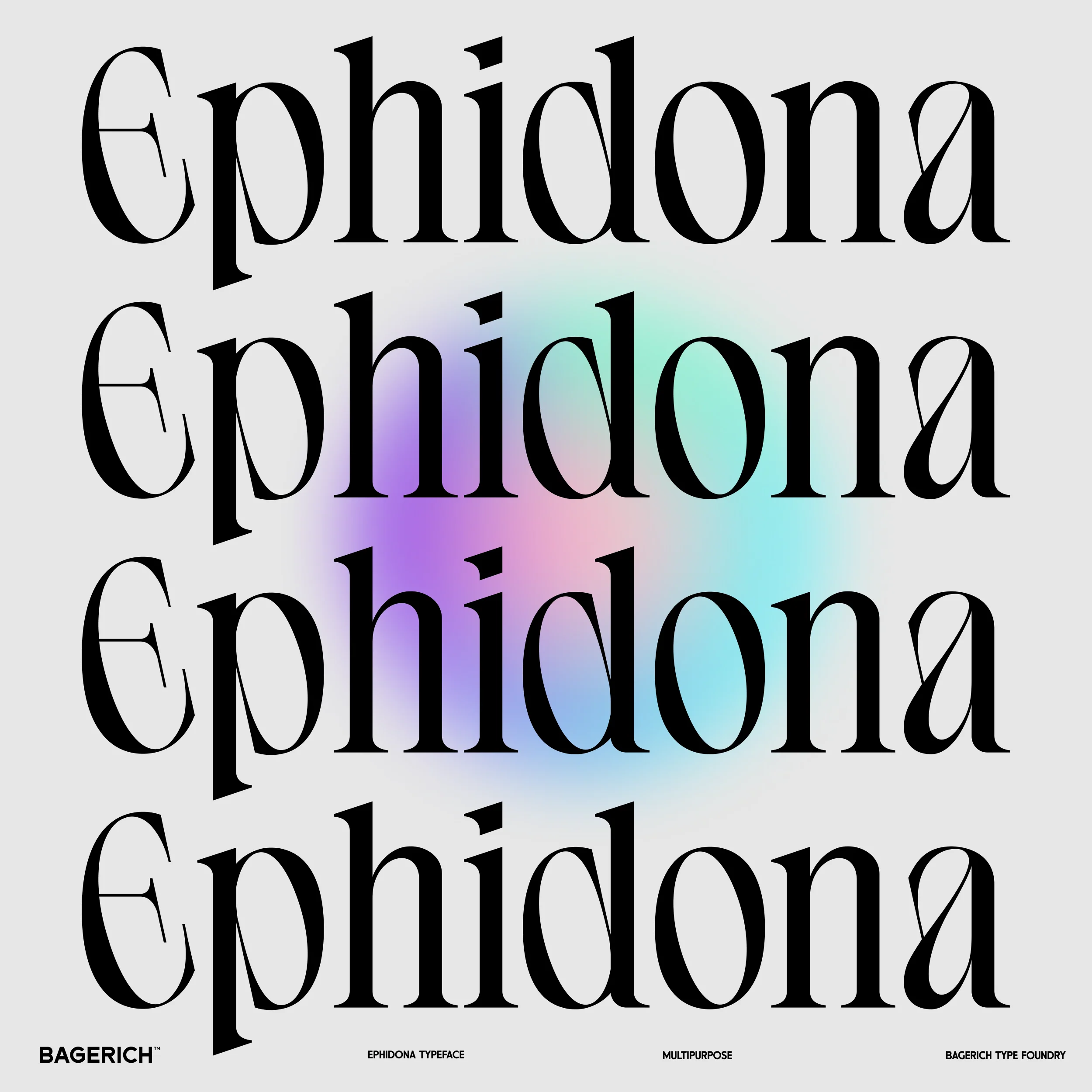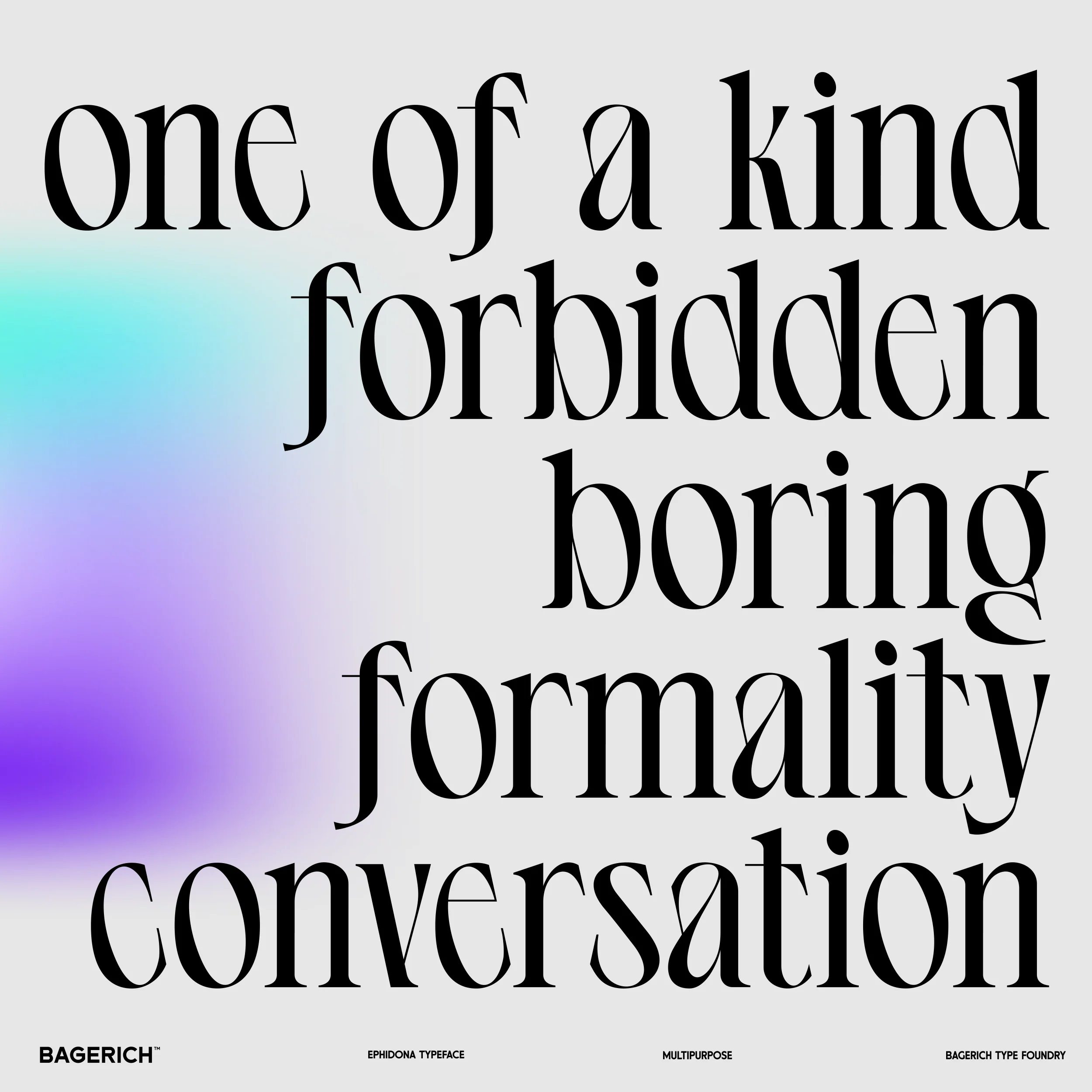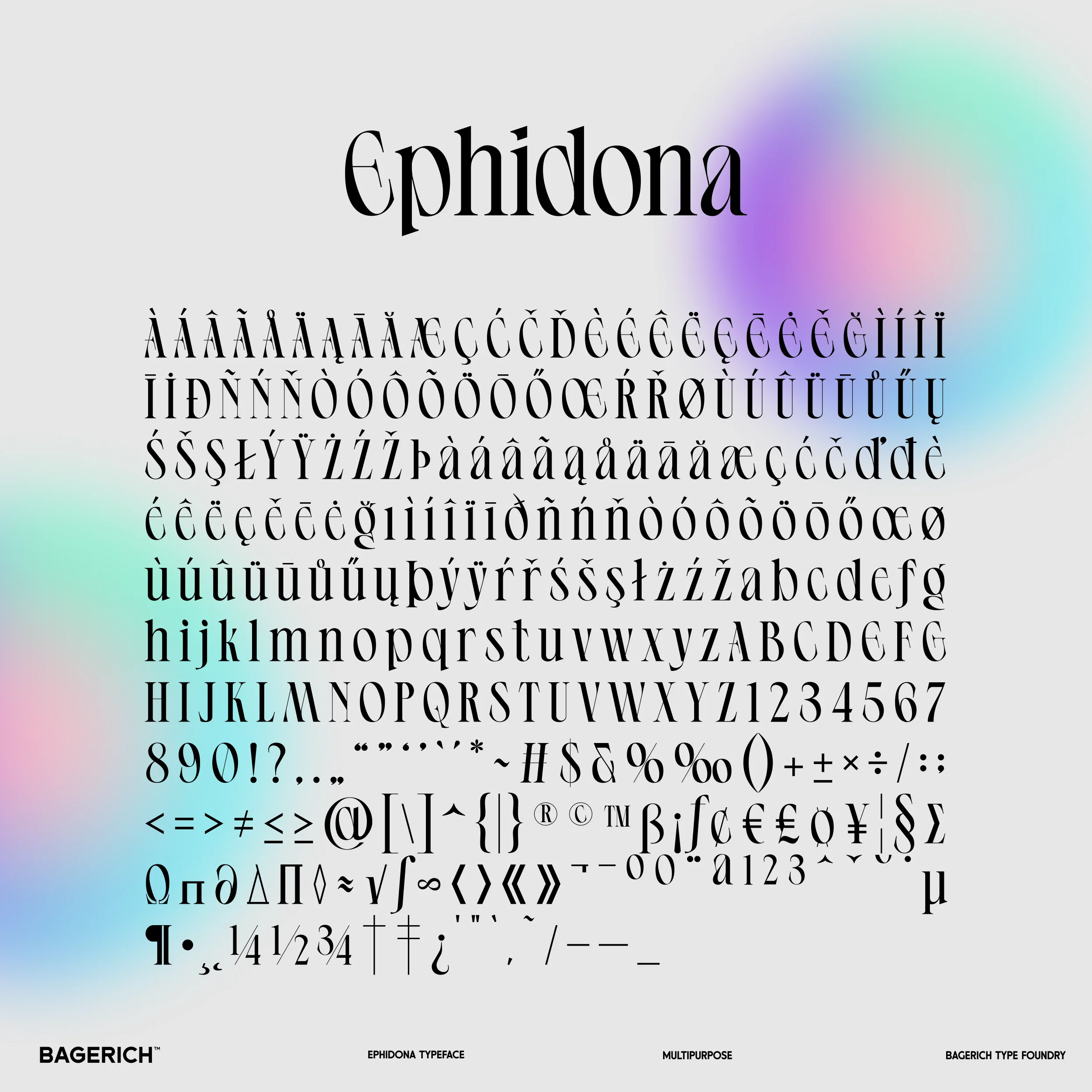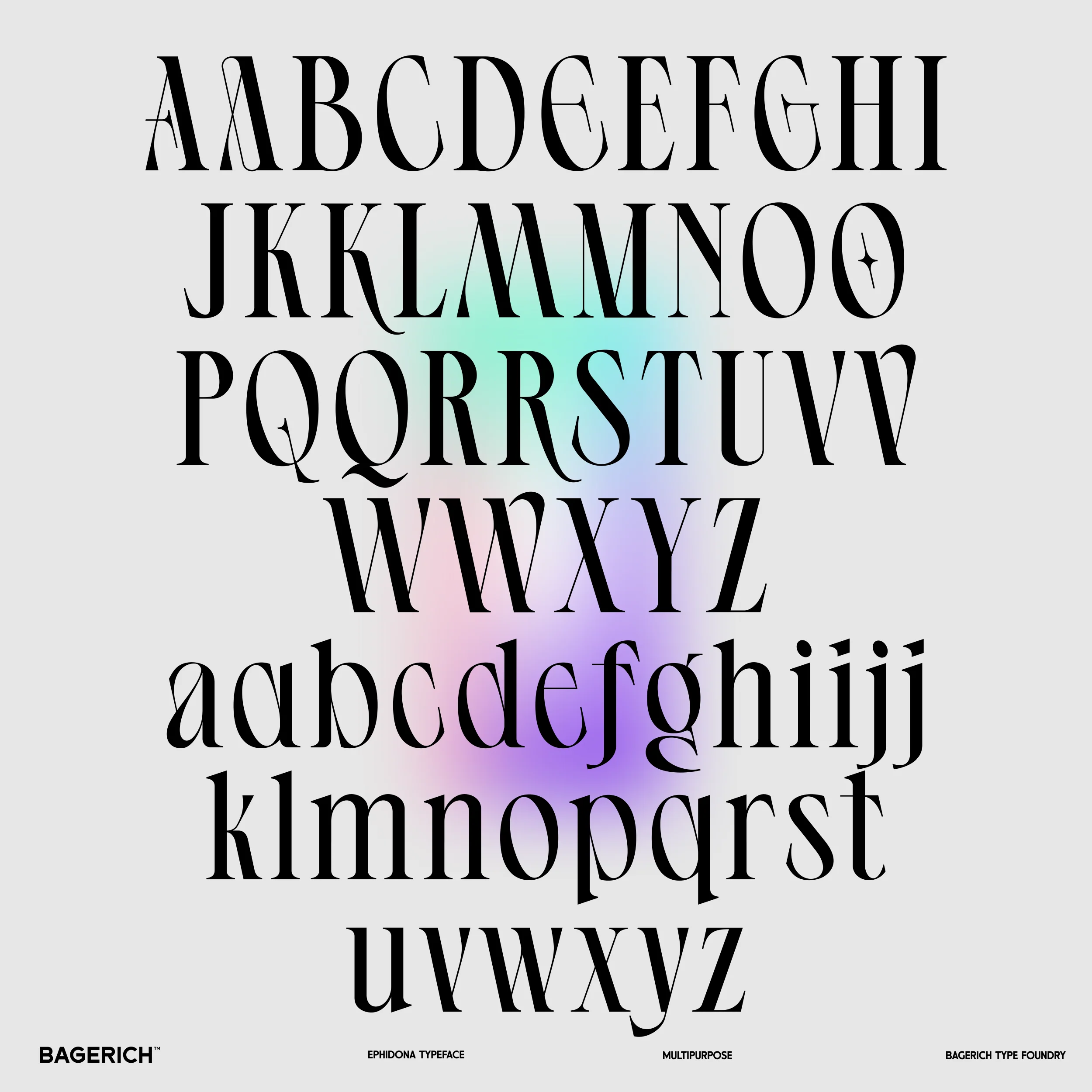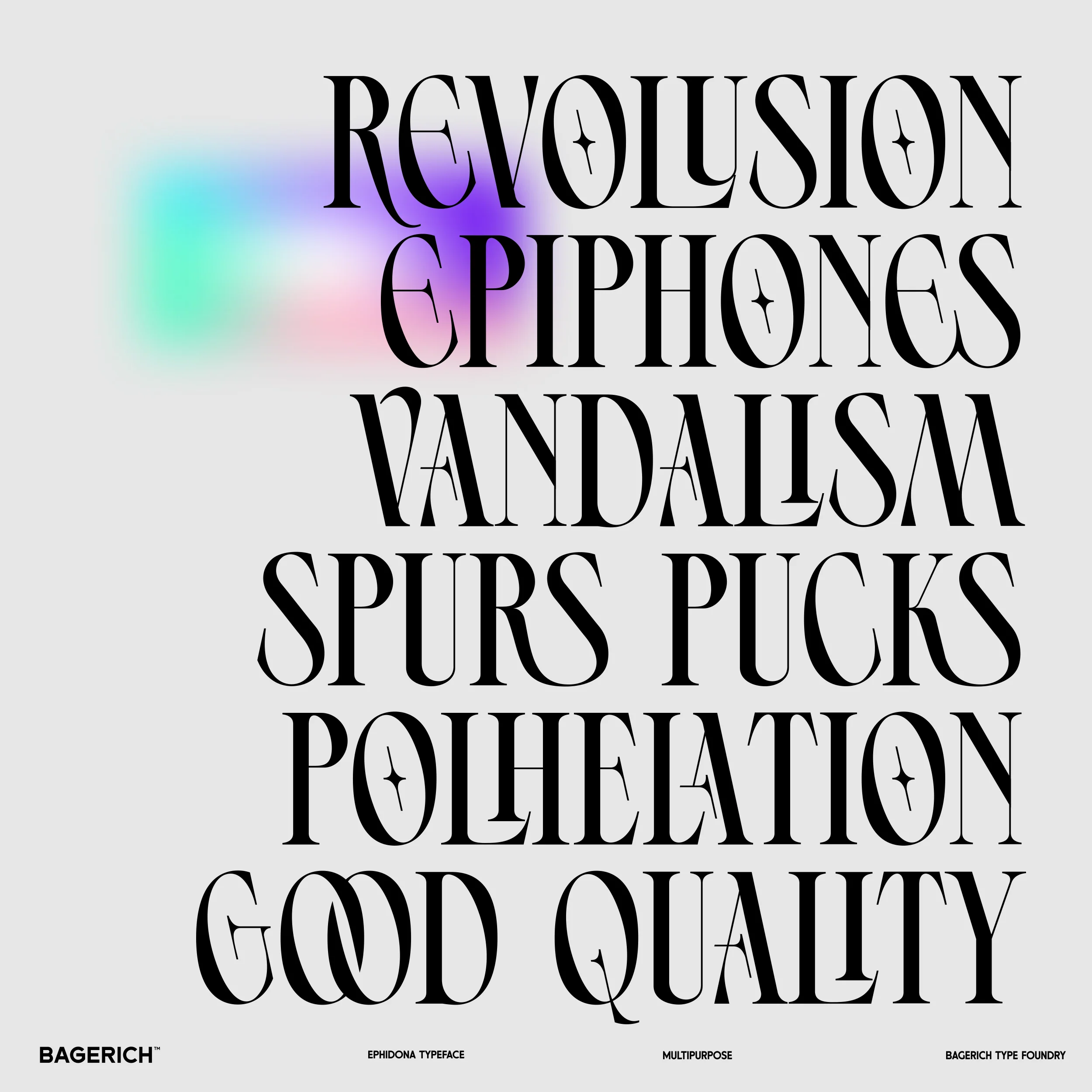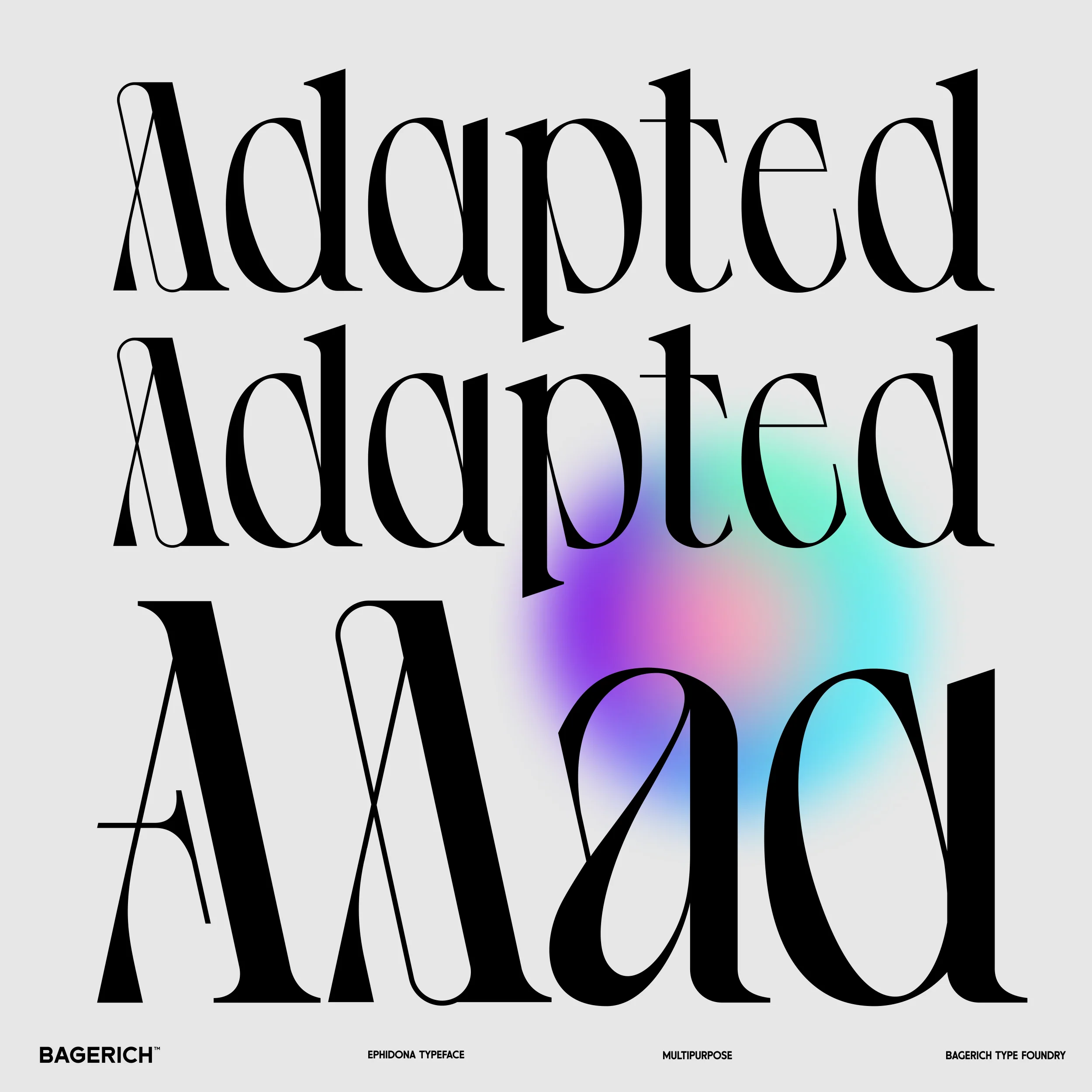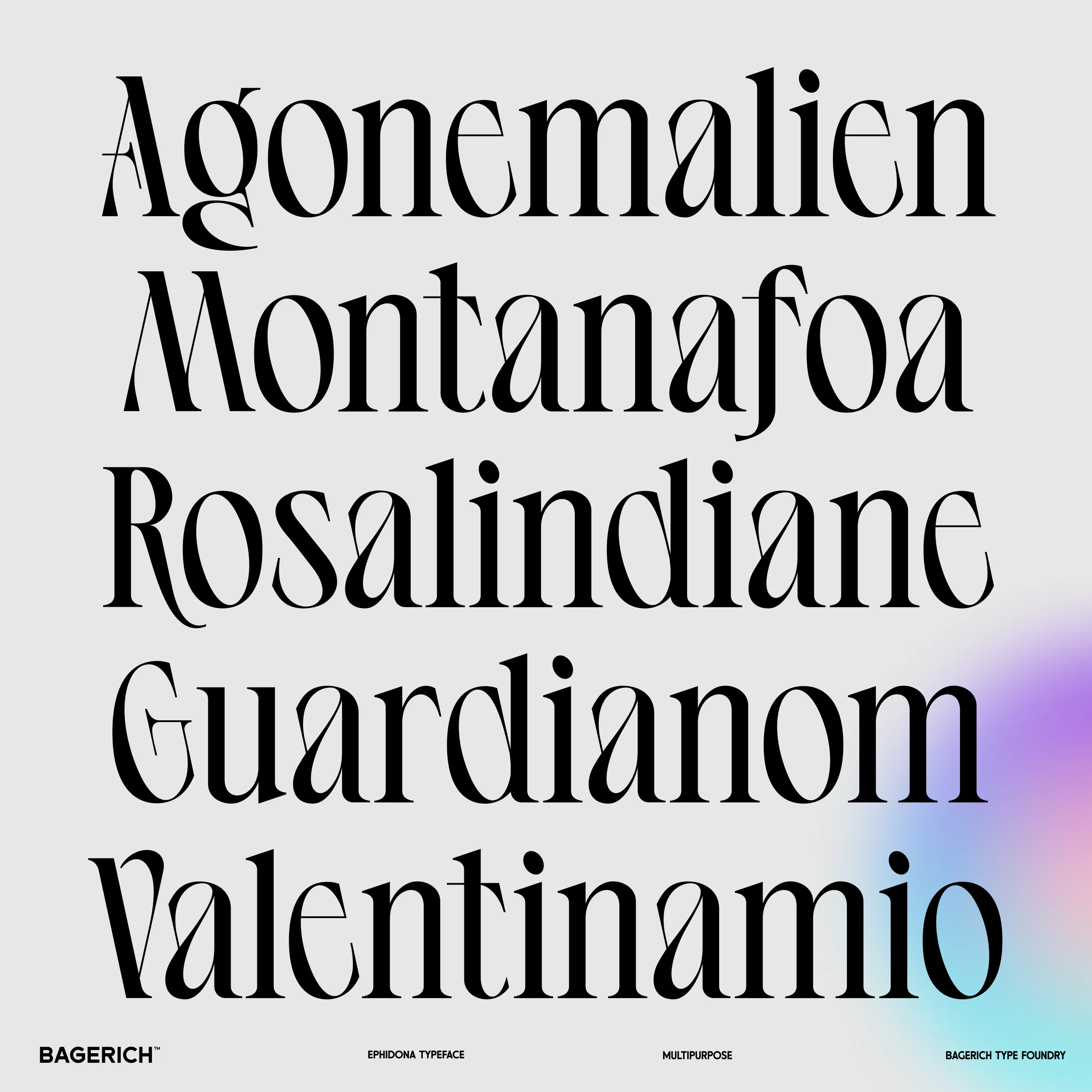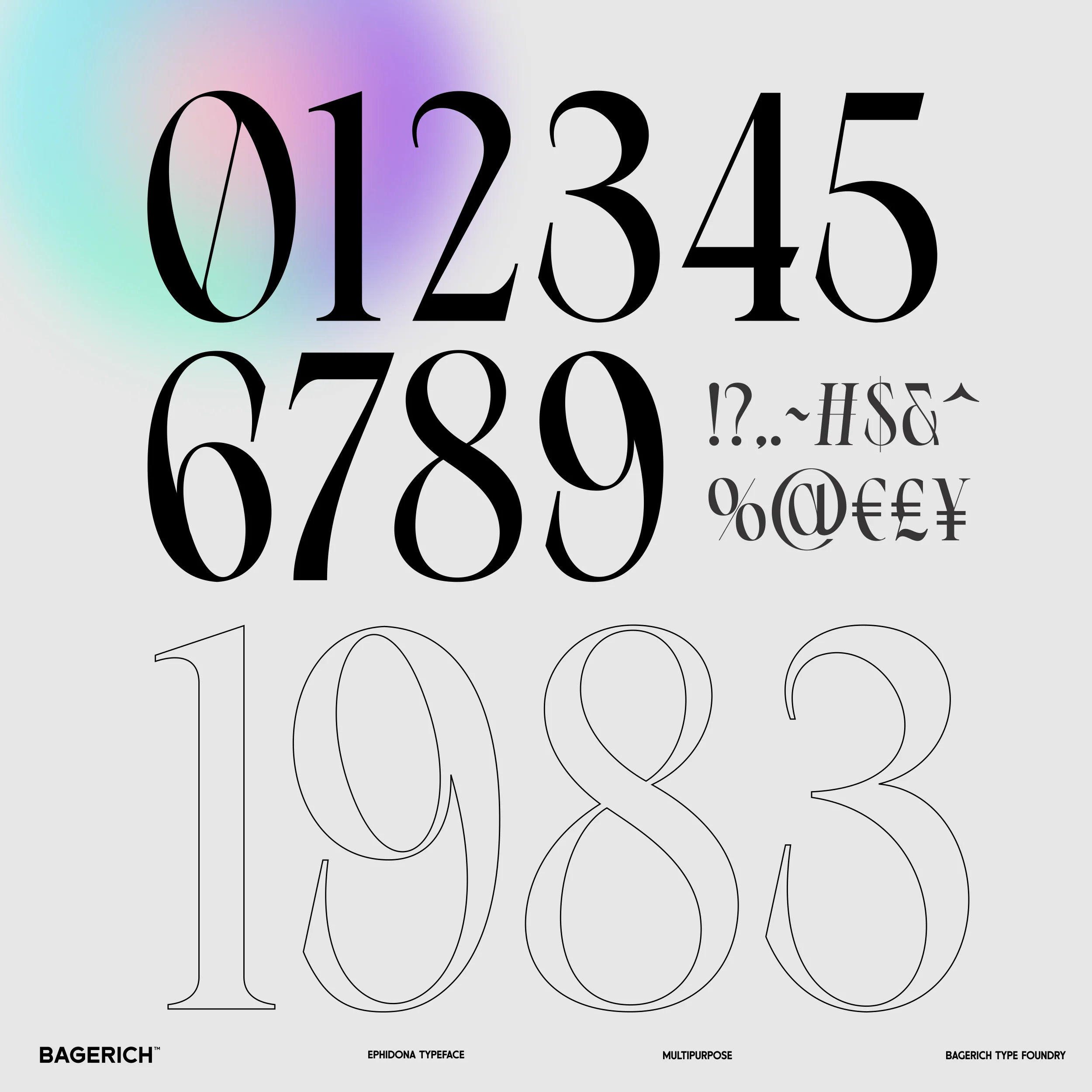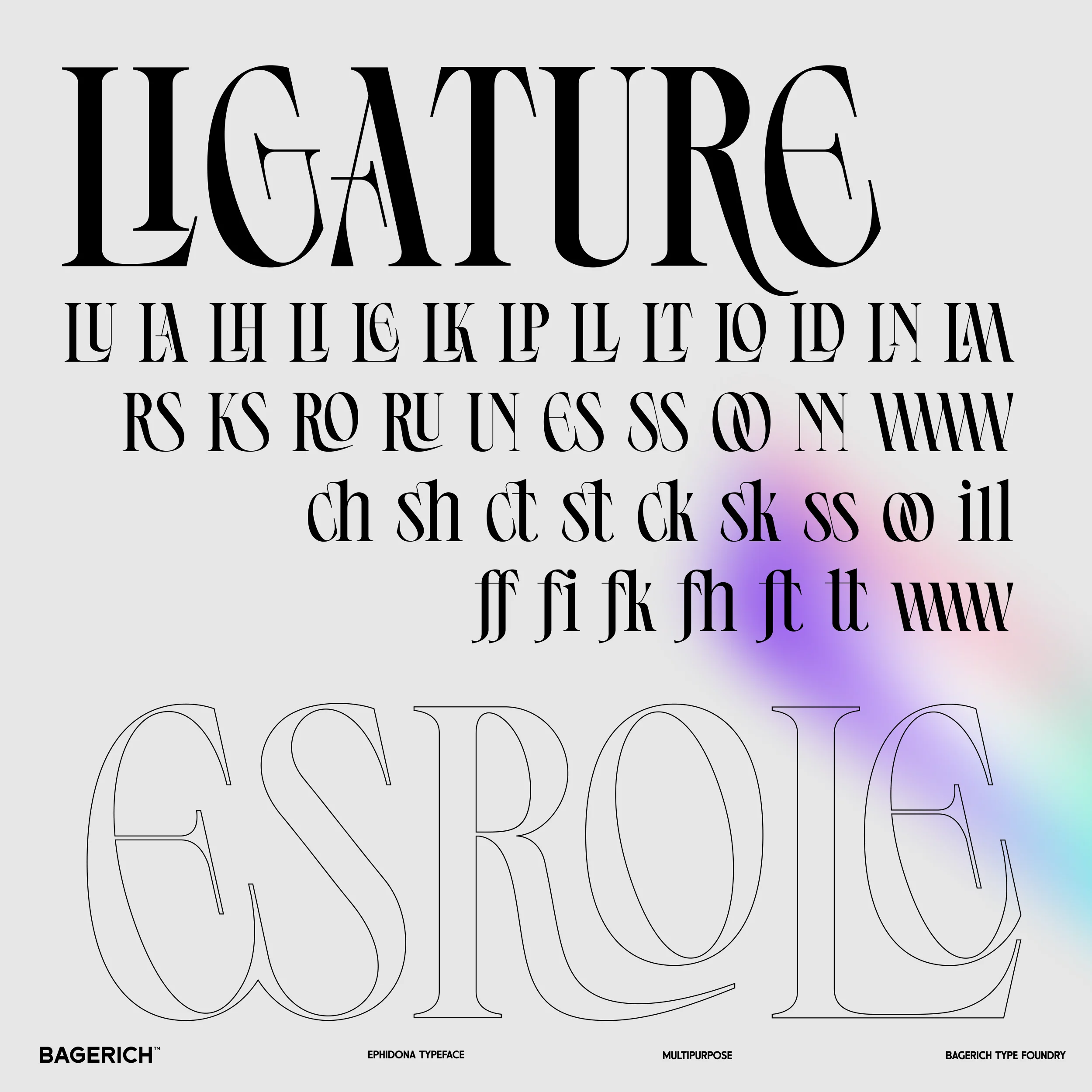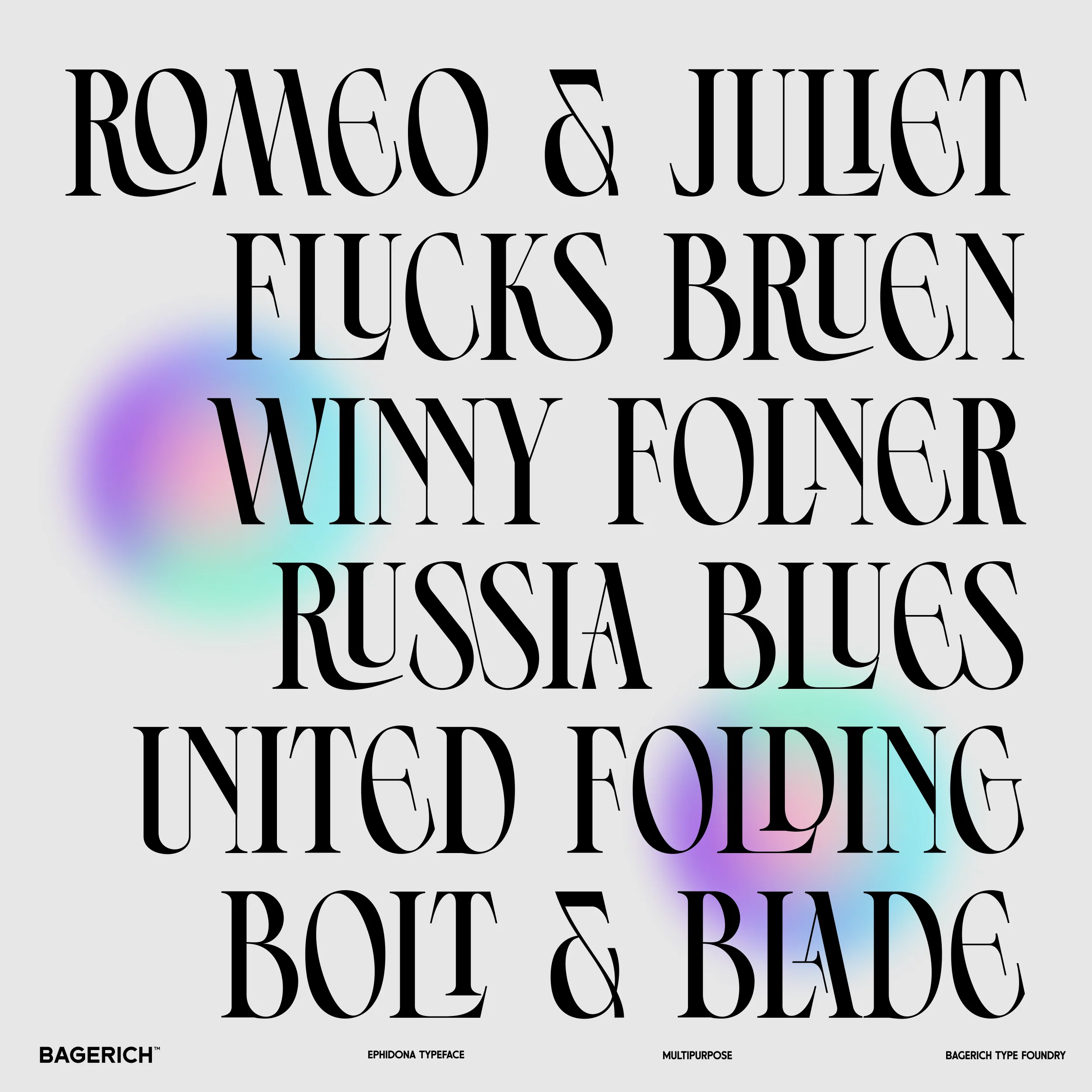
Ephidona
Ephidona is a high-contrast serif typeface offering a versatile toolkit for creating unique logotypes, and striking layouts and equipped with support for Latin languages, numbers, stylistic alternates, punctuation, and ligatures.
Ephidona
Ephidona is a high-contrast serif typeface offering a versatile toolkit for creating unique logotypes, and striking layouts and equipped with support for Latin languages, numbers, stylistic alternates, punctuation, and ligatures.